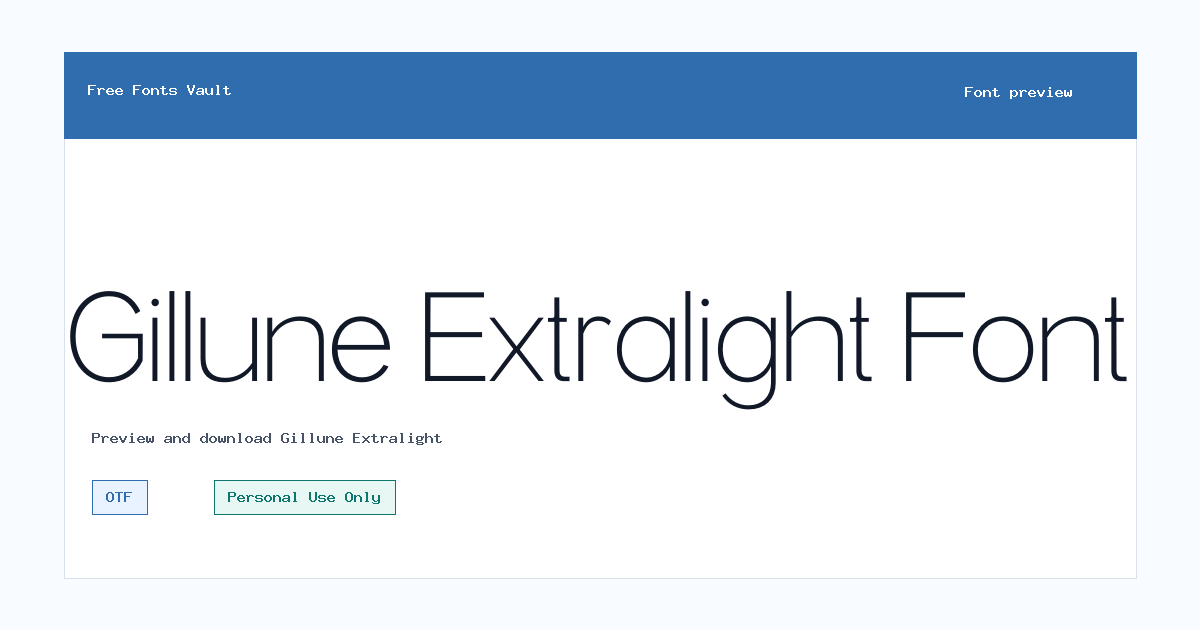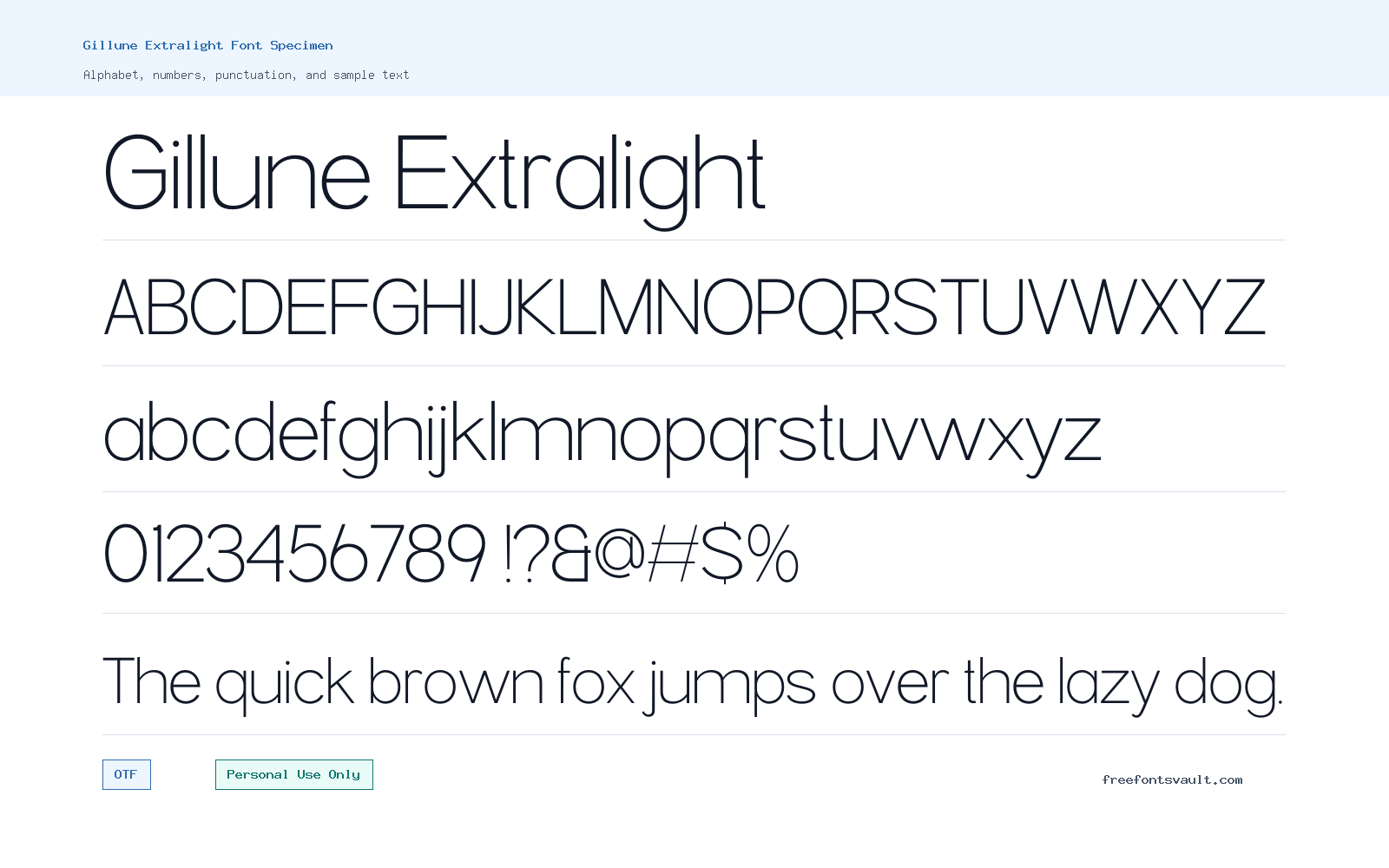
Gillune Extralight
Gillune Extralight Font
Gillune Extralight font.
Gillune Extralight is a light sans serif font with a clean, quiet look and two OTF styles: regular and italic. Its thin weight makes it useful for elegant headings, refined display text, and design mockups where a softer sans serif tone is needed.
About Gillune Extralight
Gillune Extralight is part of the Gillune Sans Serif Font Family and is credited to Casloop Team, with Casloop Studio listed as the foundry. The version on this page comes in an extra-light weight, so it is best approached as a display or accent typeface rather than a heavy-duty reading font. The regular style gives you a simple upright look, while the italic style adds a more flowing option for secondary lines, captions, pull quotes, or emphasis in a layout.
Because the weight is thin, Gillune Extralight works best when it has enough space around it. Try it in large preview sizes before using it for a logo concept, poster headline, fashion-style layout, portfolio cover, brand moodboard, or web hero mockup. It can look polished in short words and brief phrases, but very small text may lose clarity, especially on busy backgrounds or low-resolution screens. If you are using it in a design system, pair it with a sturdier sans serif or a readable serif for body copy so the lighter letterforms can stay focused on titles and highlights.
• Extra-light sans serif style for refined headings, titles, and short display text.
• Includes upright and italic OTF font files, both in a light 300 weight.
• Clean normal style plus an italic companion for contrast and emphasis.
• Works best at medium to large sizes where the thin strokes remain clear.
• Logo concepts that need a light, minimal sans serif look.
• Poster titles, cover designs, and editorial-style headings.
• Website hero mockups, landing page concepts, and portfolio layouts.
• Fashion, beauty, lifestyle, stationery, and boutique-style personal projects.
• Short quotes, captions, invitations, and social graphics where the text is not too small.
For best results, test Gillune Extralight in the preview box with the exact words you plan to use. Thin sans serif fonts can change character depending on size, spacing, color, and background. Increase letter spacing slightly for all-caps headings, avoid using it over textured images unless contrast is strong, and use the italic style sparingly so it feels intentional. For longer paragraphs, choose a more readable companion font and keep Gillune Extralight for headings, labels, or short decorative text.
What weight is Gillune Extralight?
Both included styles are listed with a 300 font weight, which is a light weight. This makes the font better for display use than for dense body text.
Is Gillune Extralight good for posters?
Yes, it can work well for poster titles and short display lines, especially when used at a large size with strong contrast. Avoid very small text or crowded backgrounds because the extra-light strokes may become hard to read.
Does Gillune Extralight include an italic version?
Yes. The font files include a regular upright OTF and an italic OTF, both in the extra-light 300 weight.
What should I pair Gillune Extralight with?
Pair it with a more readable text font for paragraphs. A neutral sans serif, a sturdy grotesque, or a calm serif can support body copy while Gillune Extralight handles headings and accent text.
Is Gillune Extralight suitable for web design?